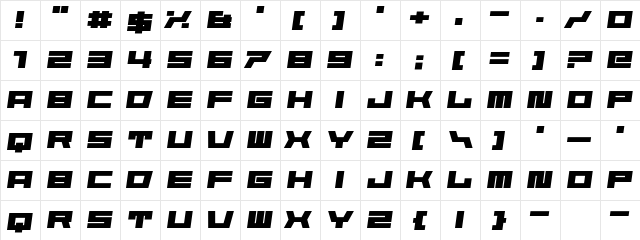
Starbirl Regular
Design Context for Starbirl Typeface
Starbirl offers clean, dependable letterforms without strong stylistic allegiance, making it a practical choice for designers who need flexibility.